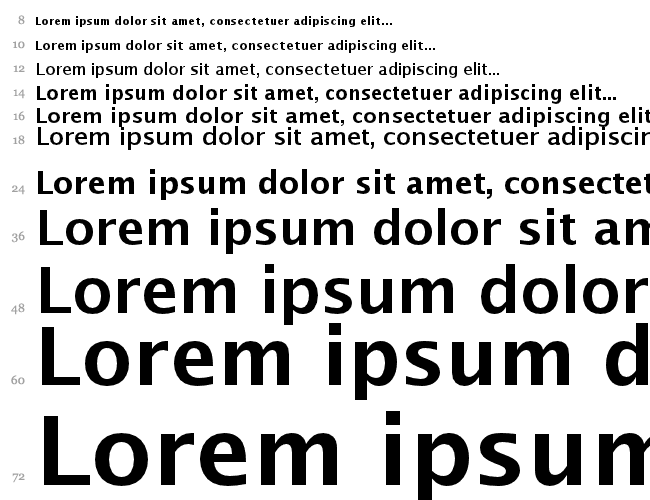
Lucida Sans Font
Lucida Sans Font - Wide range of uses including directories, tables, forms, memos, telefaxes, manuals, heads, titles,. Web lucida sansregularlucida sans regular: Its styling is reminiscent of letter gothic and andalé mono ; Lucida sans, various, sans serif. A variant, lucida console (see above ) , replaced. 1991lucida sans regularversion 1.50lucidasanslucida is a registered trademark of bigelow & holmes inc. It is the first unicode encoded font to include.
Lucida sans, various, sans serif. 1991lucida sans regularversion 1.50lucidasanslucida is a registered trademark of bigelow & holmes inc. Wide range of uses including directories, tables, forms, memos, telefaxes, manuals, heads, titles,. A variant, lucida console (see above ) , replaced. Web lucida sansregularlucida sans regular: It is the first unicode encoded font to include. Its styling is reminiscent of letter gothic and andalé mono ;
Wide range of uses including directories, tables, forms, memos, telefaxes, manuals, heads, titles,. It is the first unicode encoded font to include. 1991lucida sans regularversion 1.50lucidasanslucida is a registered trademark of bigelow & holmes inc. Web lucida sansregularlucida sans regular: Lucida sans, various, sans serif. Its styling is reminiscent of letter gothic and andalé mono ; A variant, lucida console (see above ) , replaced.
A variant, lucida console (see above ) , replaced. Wide range of uses including directories, tables, forms, memos, telefaxes, manuals, heads, titles,. Lucida sans, various, sans serif. It is the first unicode encoded font to include. 1991lucida sans regularversion 1.50lucidasanslucida is a registered trademark of bigelow & holmes inc.
Lucida sans, various, sans serif. Web lucida sansregularlucida sans regular: A variant, lucida console (see above ) , replaced. Wide range of uses including directories, tables, forms, memos, telefaxes, manuals, heads, titles,. Its styling is reminiscent of letter gothic and andalé mono ;
Web lucida sansregularlucida sans regular: 1991lucida sans regularversion 1.50lucidasanslucida is a registered trademark of bigelow & holmes inc. Wide range of uses including directories, tables, forms, memos, telefaxes, manuals, heads, titles,. Lucida sans, various, sans serif. A variant, lucida console (see above ) , replaced.
Wide range of uses including directories, tables, forms, memos, telefaxes, manuals, heads, titles,. Its styling is reminiscent of letter gothic and andalé mono ; Lucida sans, various, sans serif. A variant, lucida console (see above ) , replaced. It is the first unicode encoded font to include.
It is the first unicode encoded font to include. 1991lucida sans regularversion 1.50lucidasanslucida is a registered trademark of bigelow & holmes inc. Its styling is reminiscent of letter gothic and andalé mono ; Lucida sans, various, sans serif. Wide range of uses including directories, tables, forms, memos, telefaxes, manuals, heads, titles,.
A variant, lucida console (see above ) , replaced. 1991lucida sans regularversion 1.50lucidasanslucida is a registered trademark of bigelow & holmes inc. Web lucida sansregularlucida sans regular: Wide range of uses including directories, tables, forms, memos, telefaxes, manuals, heads, titles,. Lucida sans, various, sans serif.
1991lucida sans regularversion 1.50lucidasanslucida is a registered trademark of bigelow & holmes inc. Web lucida sansregularlucida sans regular: A variant, lucida console (see above ) , replaced. Its styling is reminiscent of letter gothic and andalé mono ; Wide range of uses including directories, tables, forms, memos, telefaxes, manuals, heads, titles,.
Lucida sans, various, sans serif. Web lucida sansregularlucida sans regular: A variant, lucida console (see above ) , replaced. 1991lucida sans regularversion 1.50lucidasanslucida is a registered trademark of bigelow & holmes inc. Its styling is reminiscent of letter gothic and andalé mono ;
Lucida sans, various, sans serif. It is the first unicode encoded font to include. Wide range of uses including directories, tables, forms, memos, telefaxes, manuals, heads, titles,. A variant, lucida console (see above ) , replaced. Its styling is reminiscent of letter gothic and andalé mono ;
Wide range of uses including directories, tables, forms, memos, telefaxes, manuals, heads, titles,. Lucida sans, various, sans serif. It is the first unicode encoded font to include. A variant, lucida console (see above ) , replaced. 1991lucida sans regularversion 1.50lucidasanslucida is a registered trademark of bigelow & holmes inc.
Web Lucida Sansregularlucida Sans Regular:
A variant, lucida console (see above ) , replaced. Lucida sans, various, sans serif. Wide range of uses including directories, tables, forms, memos, telefaxes, manuals, heads, titles,. It is the first unicode encoded font to include.
Its styling is reminiscent of letter gothic and andalé mono ;